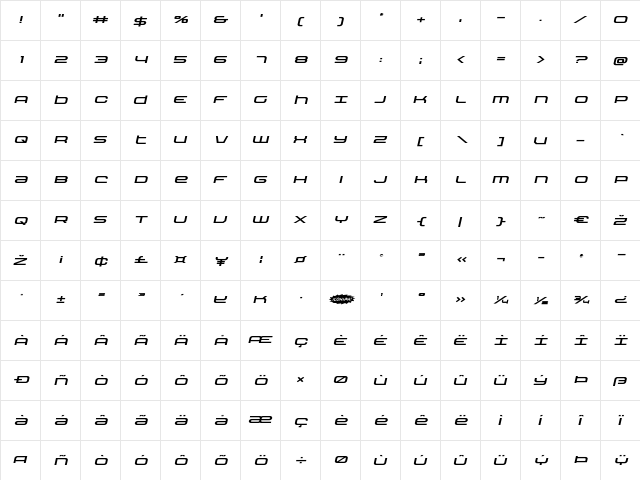
Nextwave Expanded Italic Expanded Italic
Design Context for Nextwave Expanded Italic Typeface
Nextwave Expanded Italic offers clean, dependable letterforms without strong stylistic allegiance, making it a practical choice for designers who need flexibility. The dynamic lean of this cut emphasises speed and emphasis in any layout.
Pro Tip: Try Nextwave Expanded Italic for annotation and caption copy alongside an upright companion — the contrast in angle creates a dynamic but ordered typographic system.